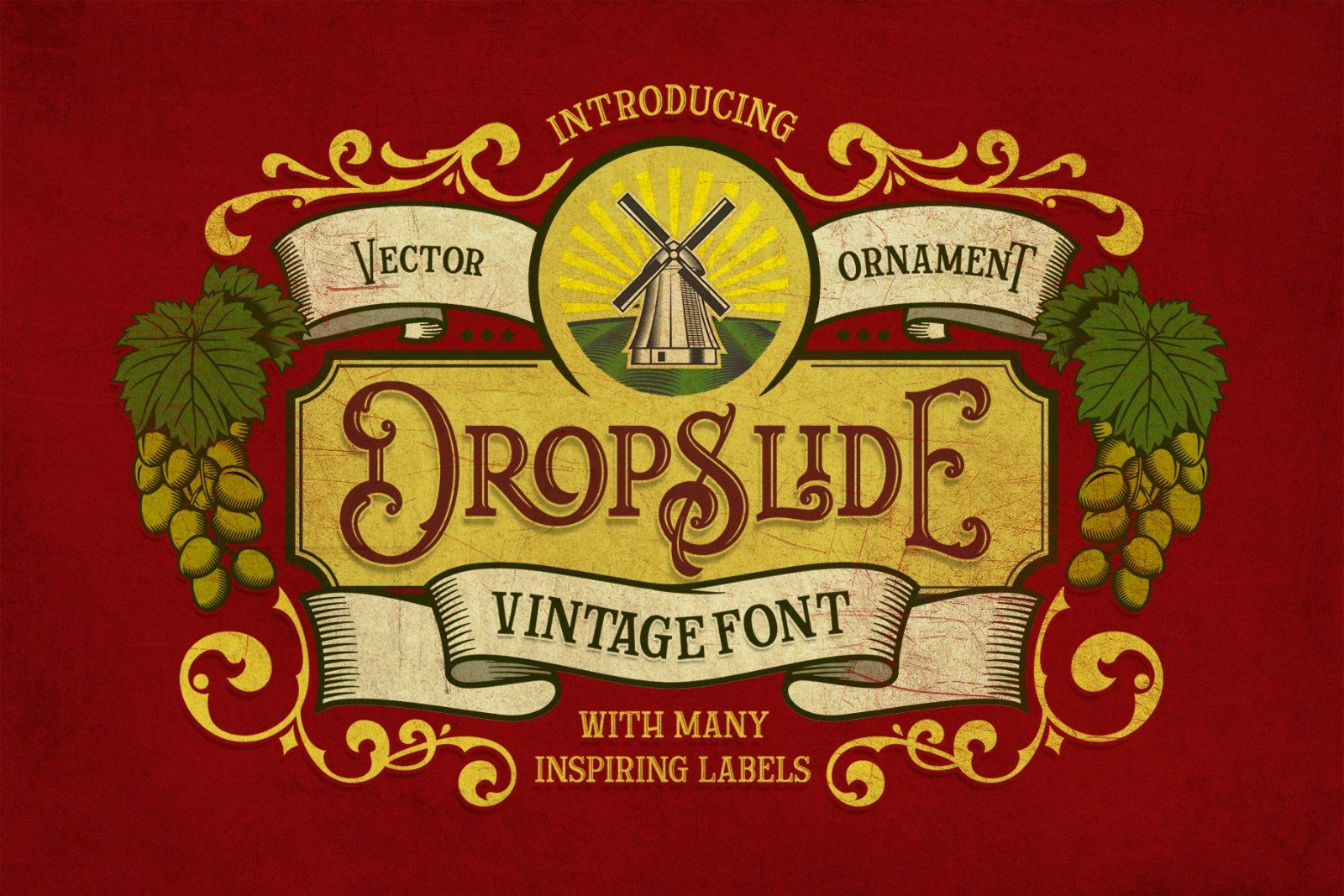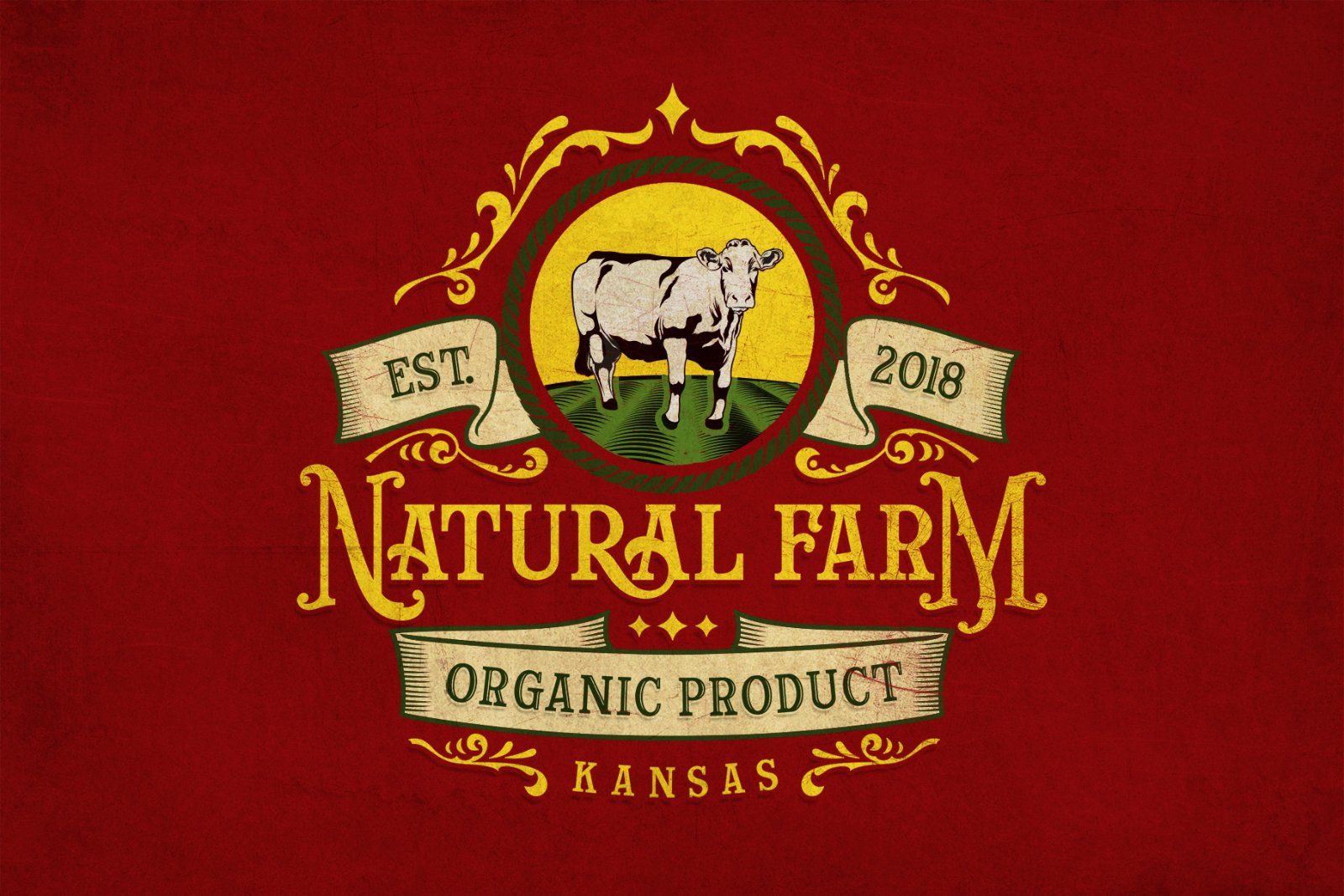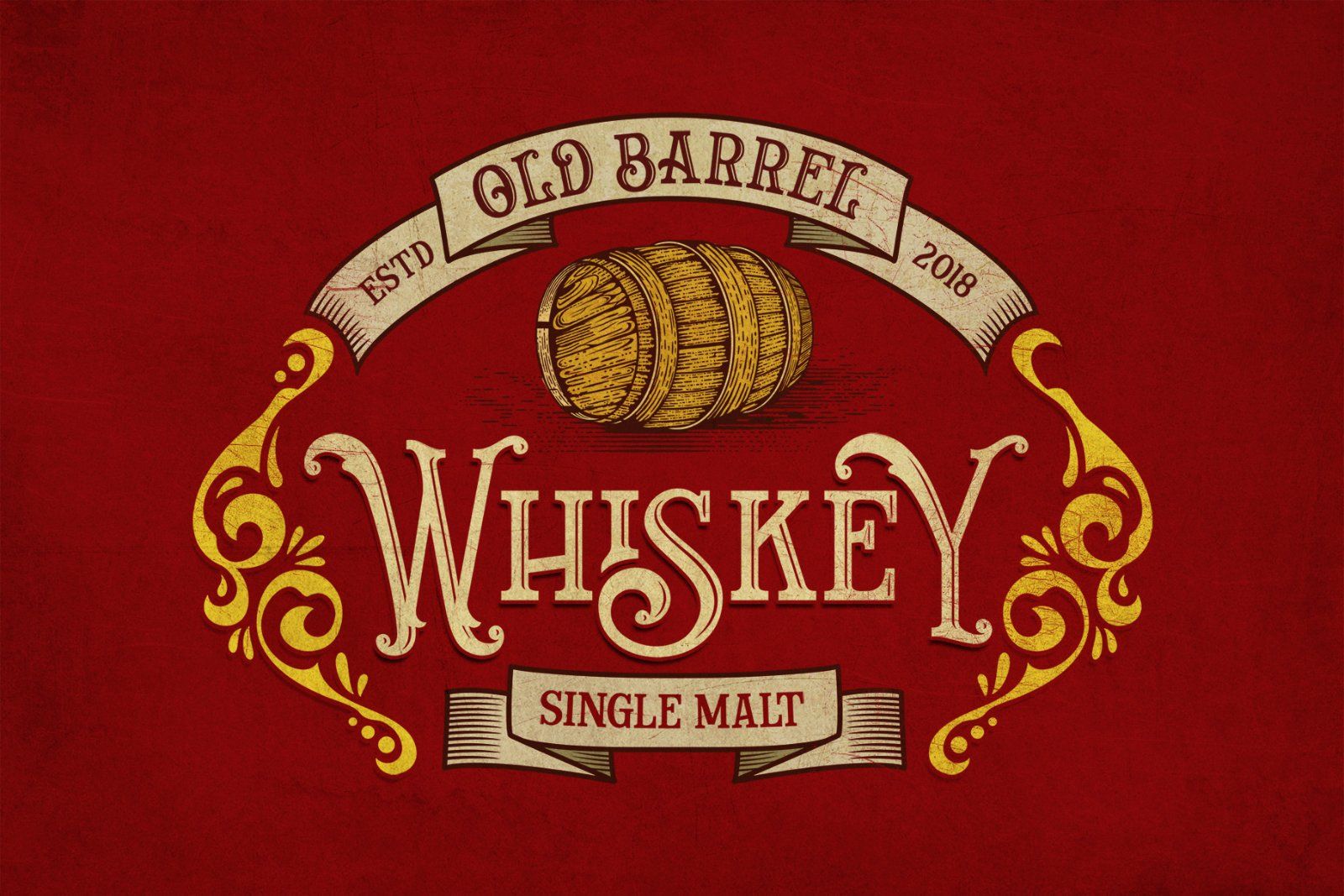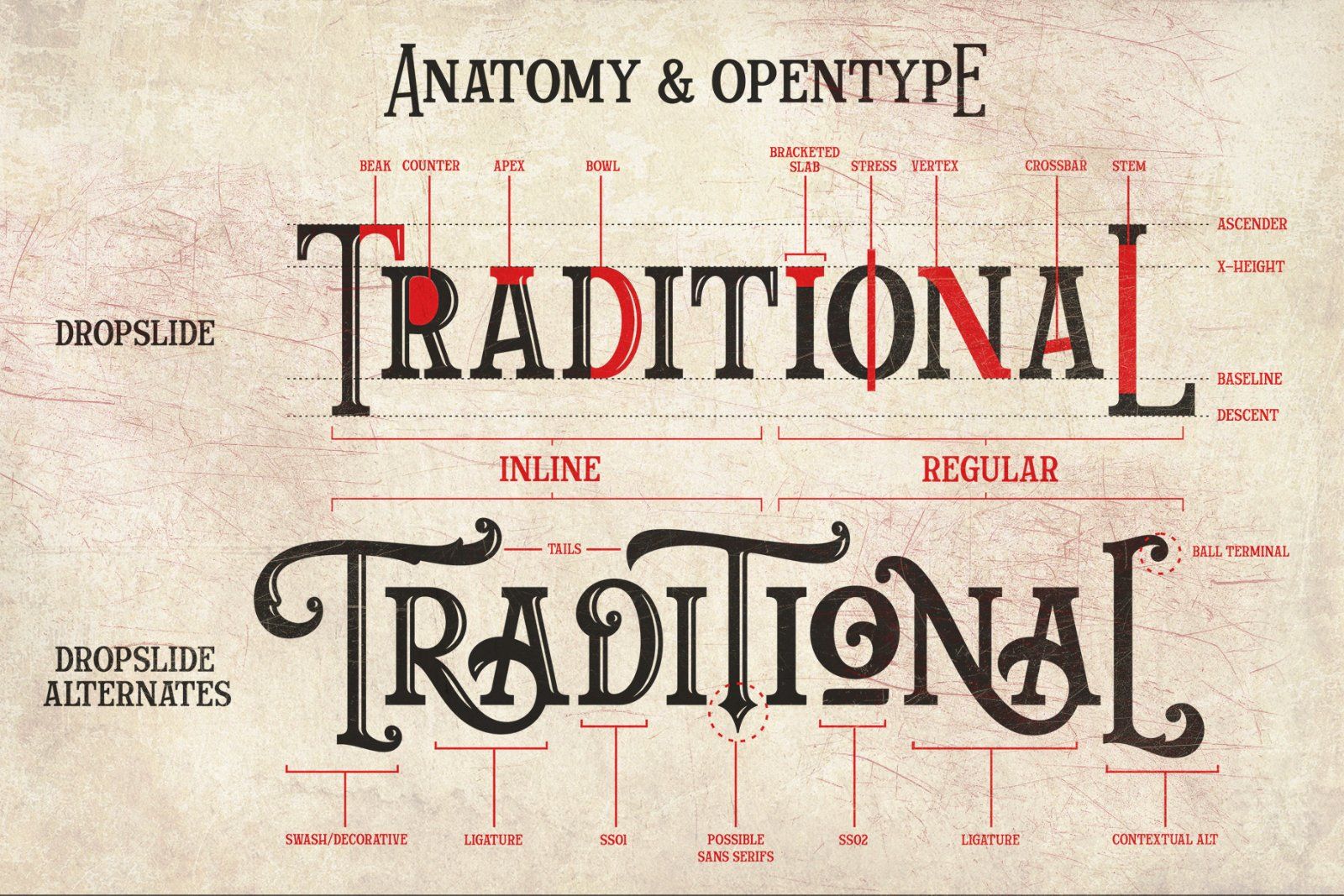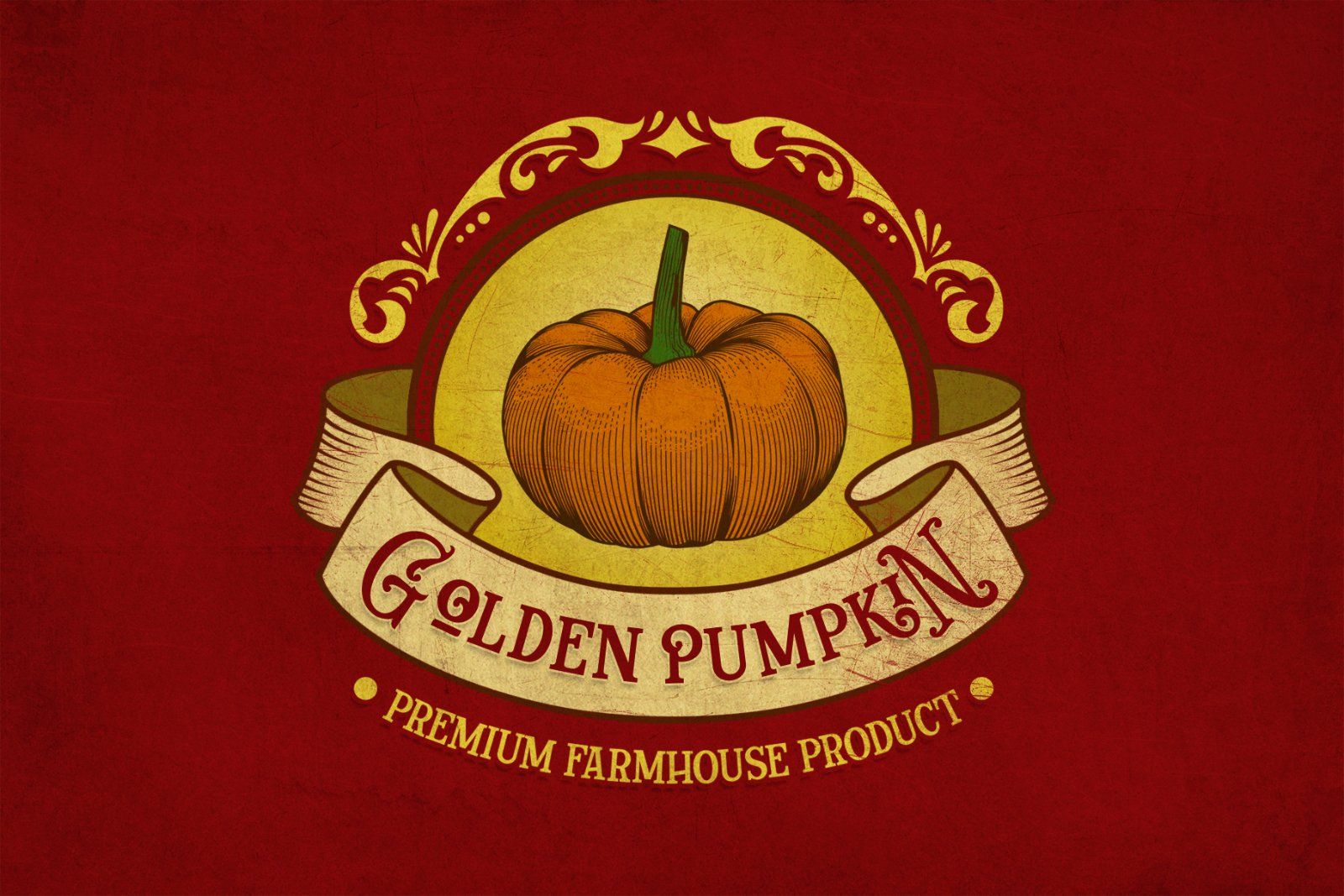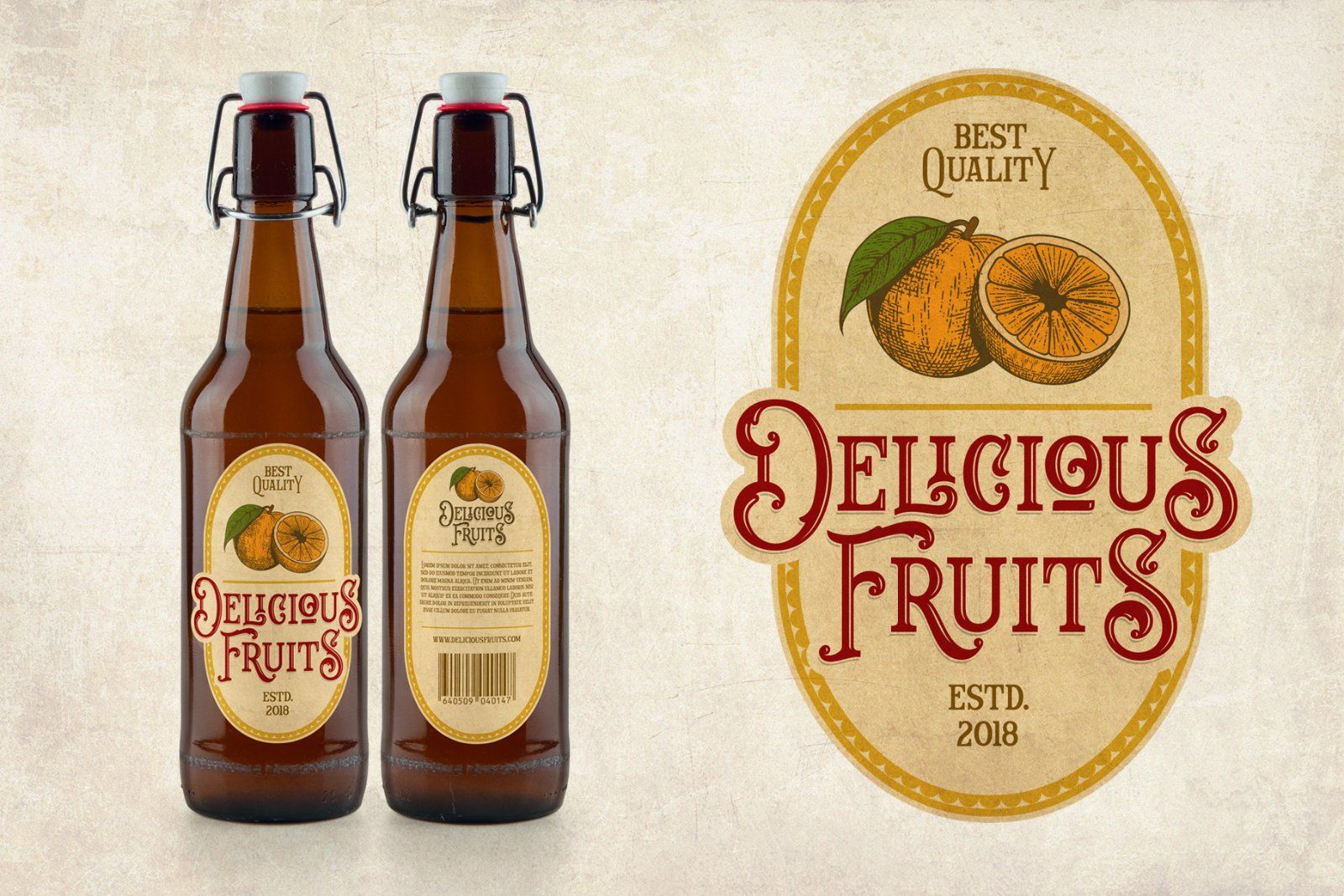
Dropslide is a font display is made by hand, inspired by classic posters. Bring up your vintage passion with this font, so much inspiration as you access it. All benefits you will feel when you start to create works with Dropslide fonts. What are you waiting for, the best price and best quality we give you with pride.